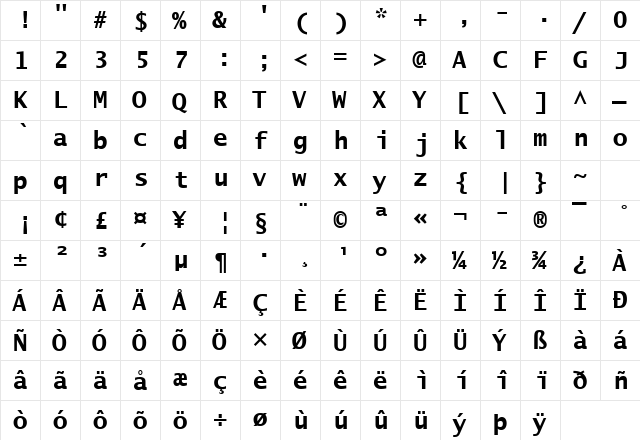
Lucida Becker Sans Typewr Demi Regular
Design Context for Lucida Becker Sans Typewr Demi Typeface
Lucida Becker Sans Typewr Demi offers clean, dependable letterforms without strong stylistic allegiance, making it a practical choice for designers who need flexibility.